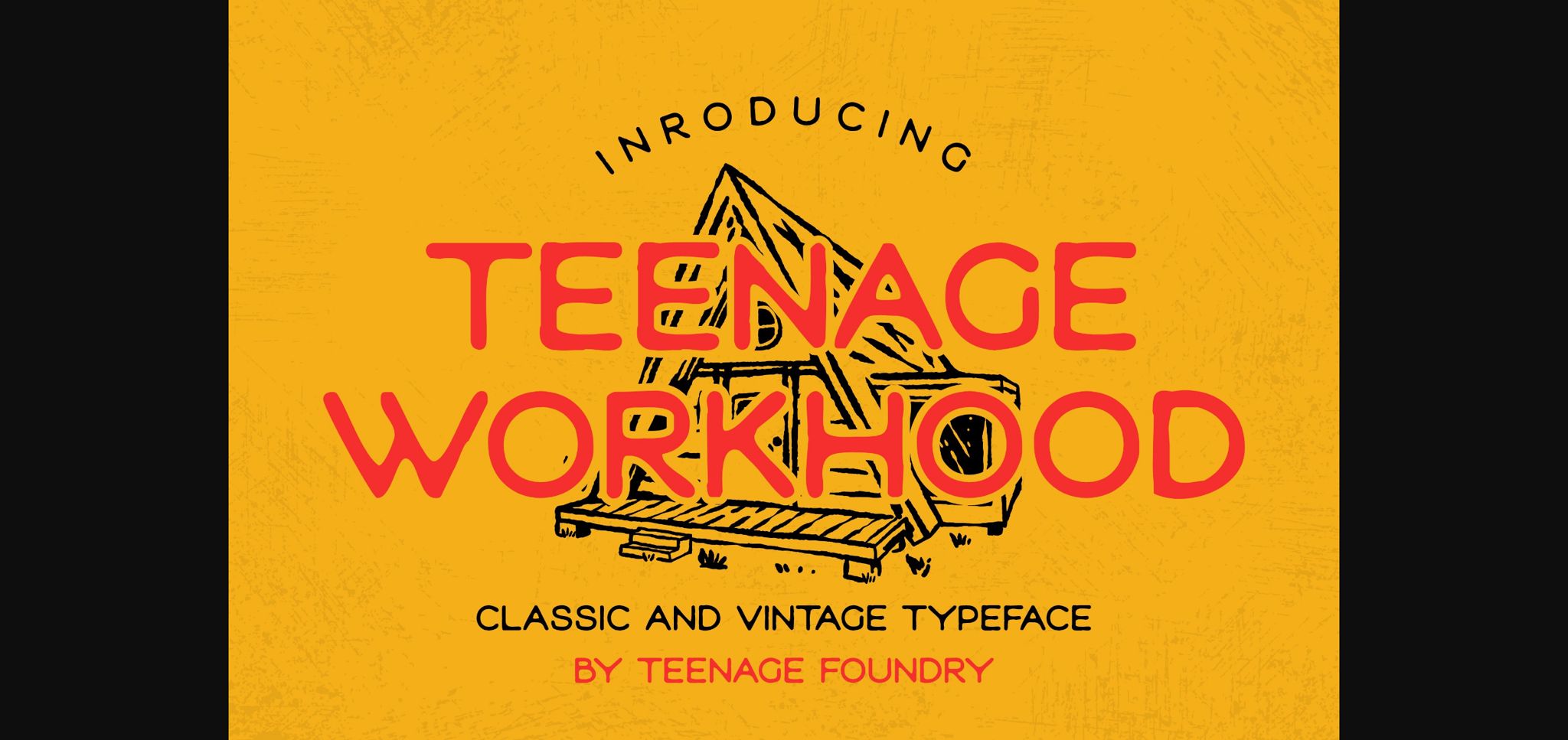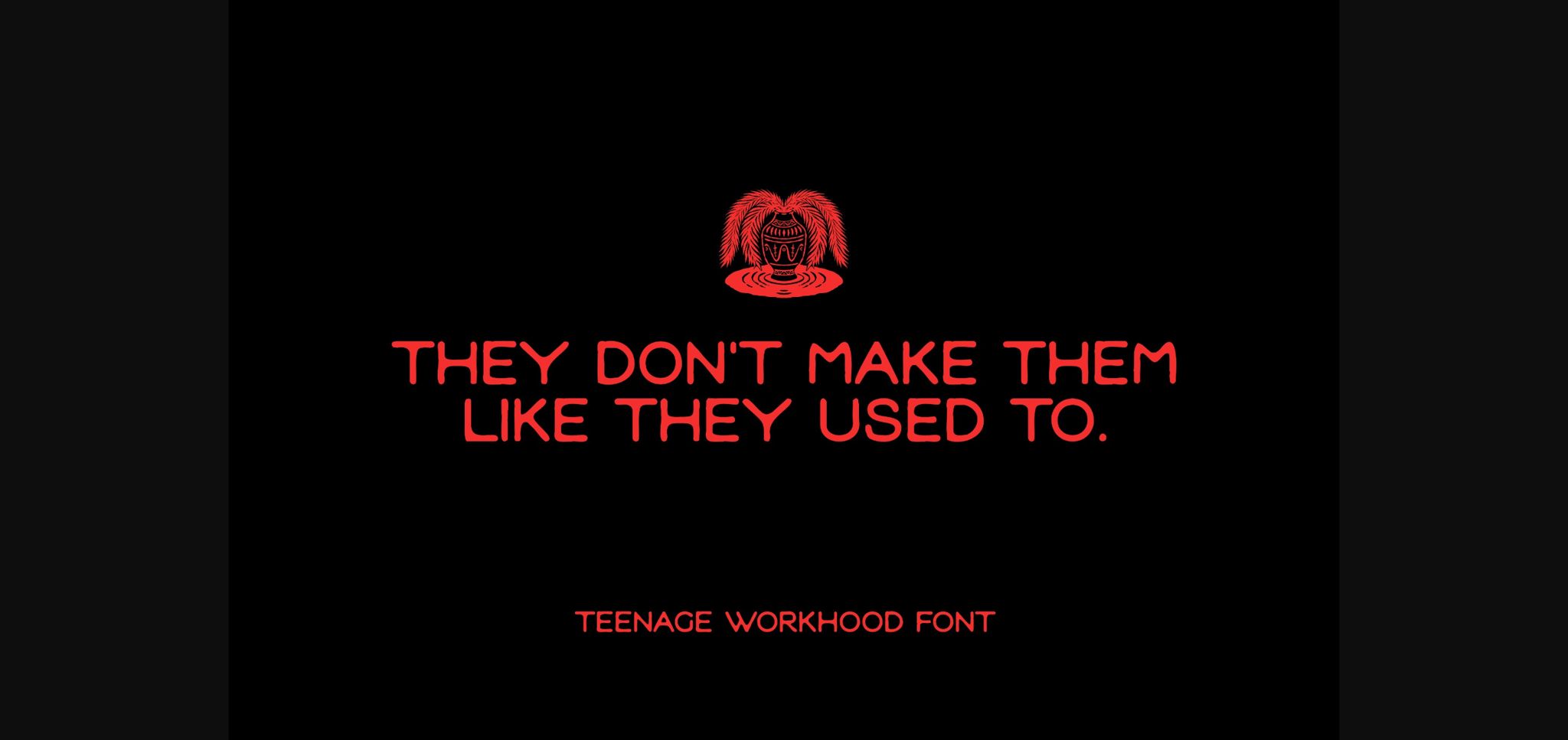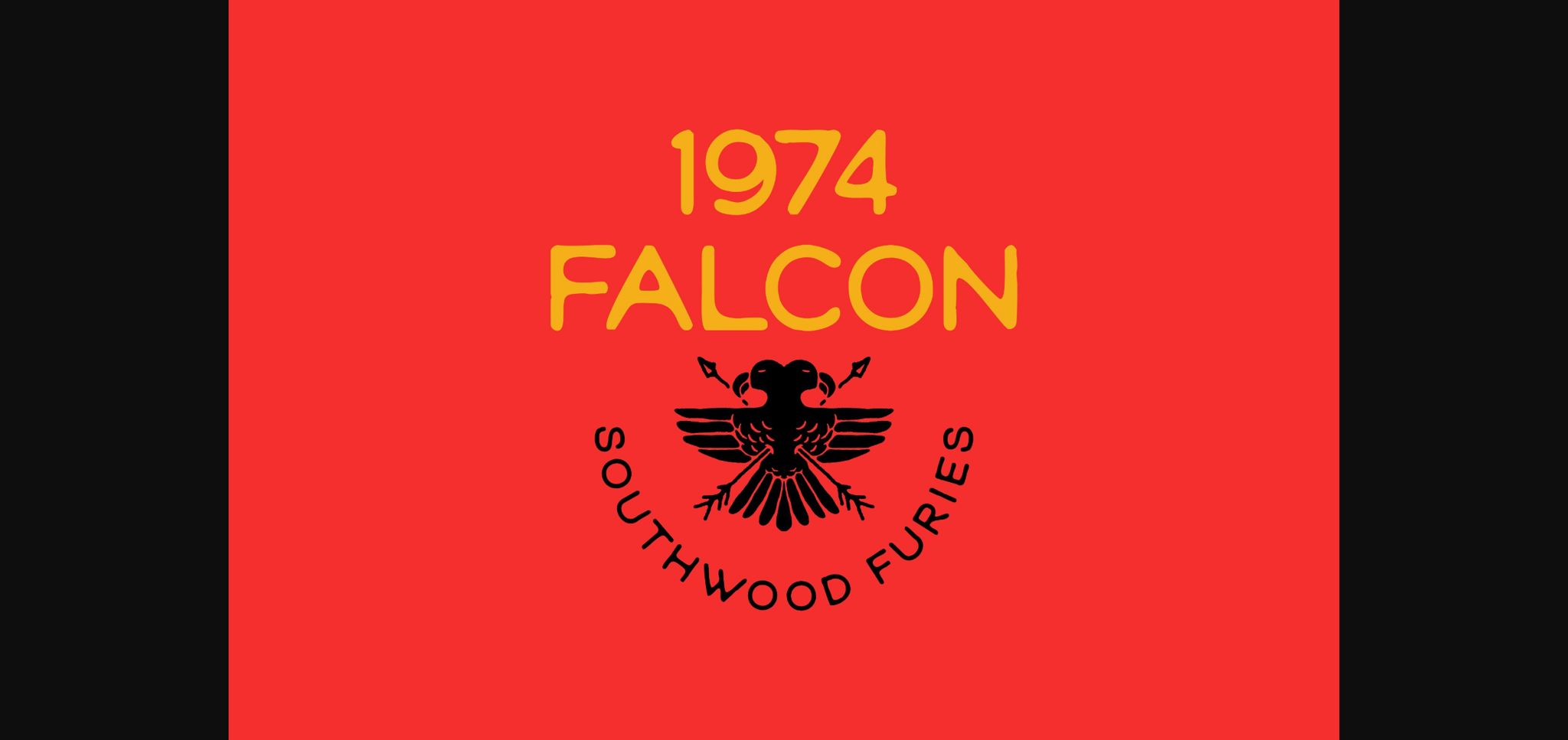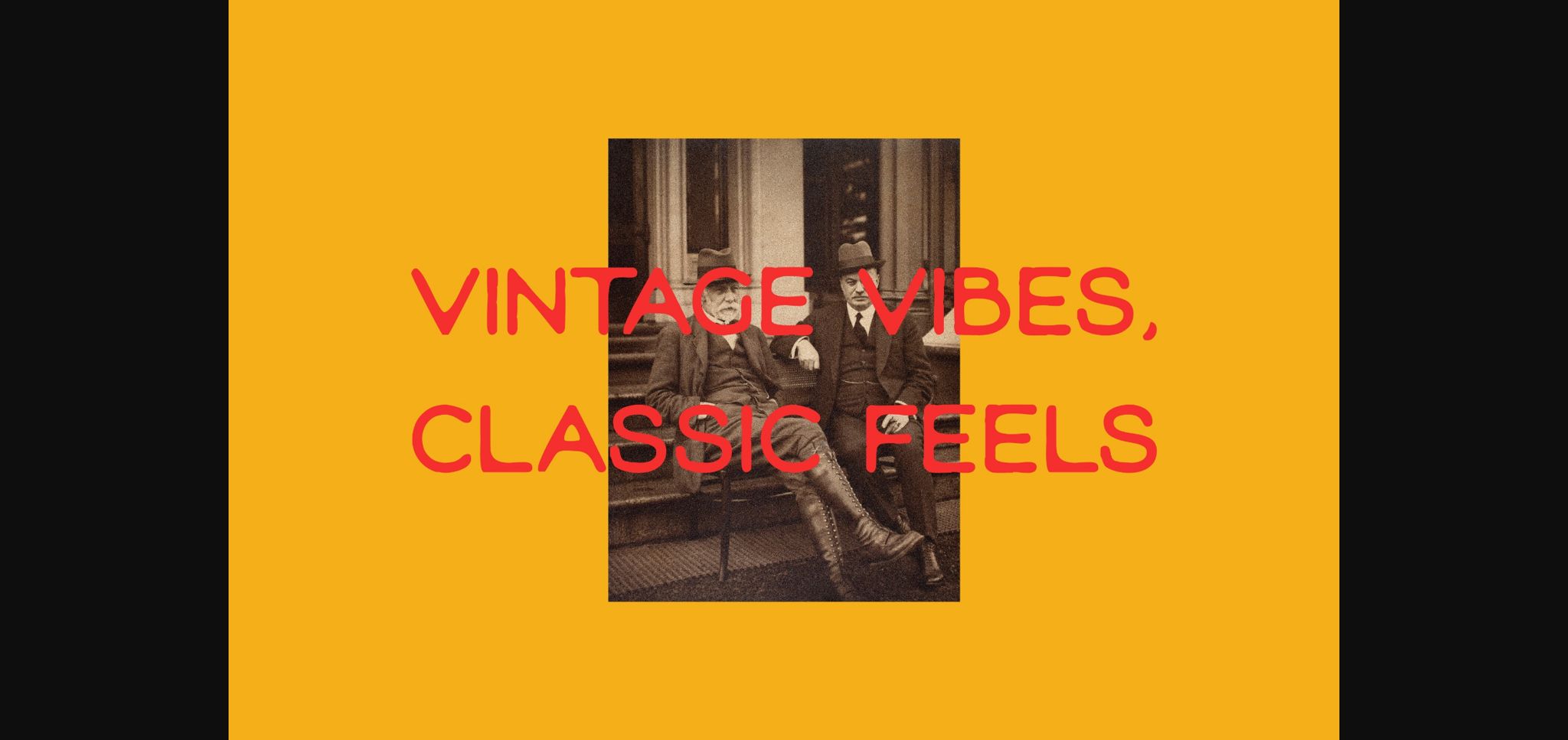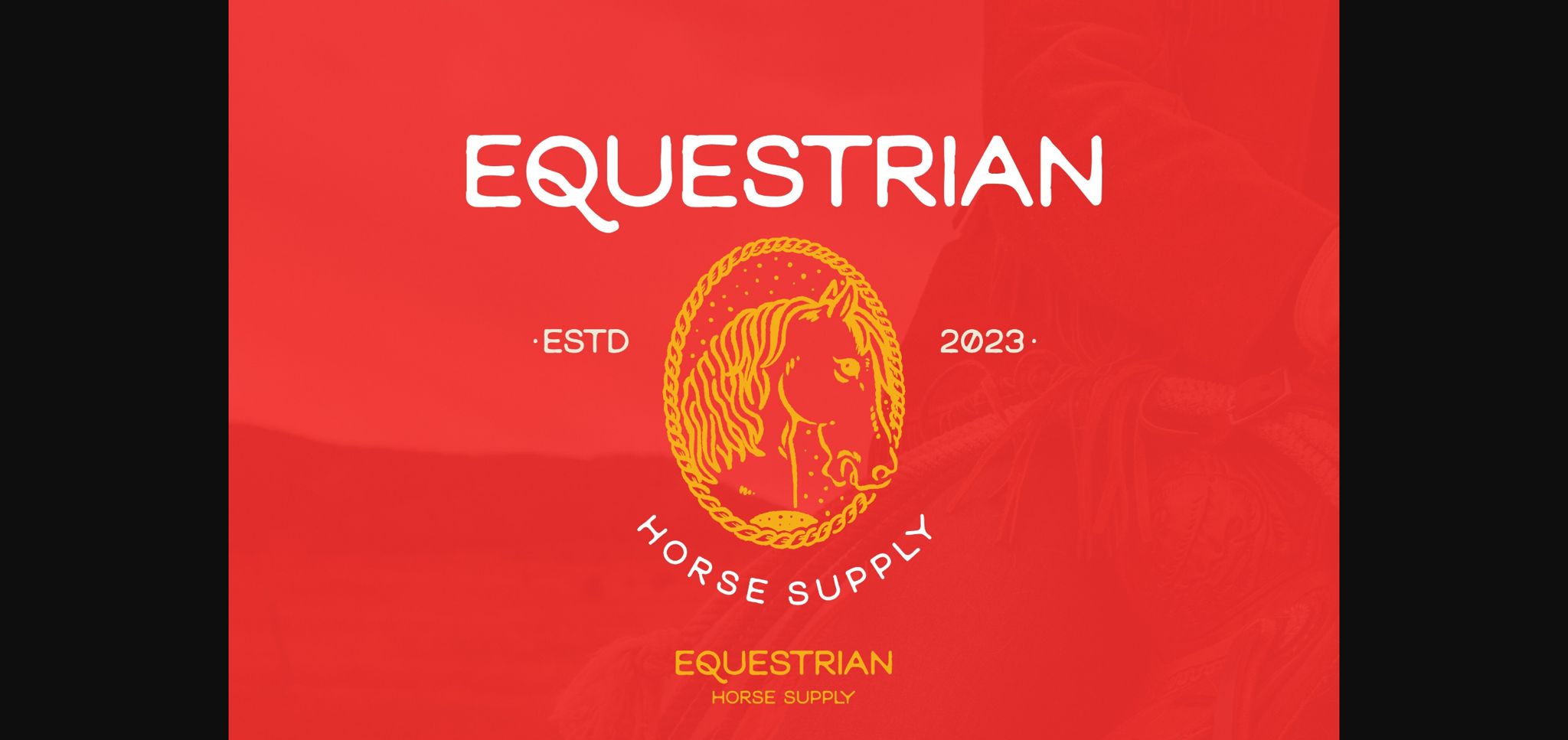
About Teenage Workhood Font
Teenage Workhood typeface, a classic and vintage-inspired font that brings a charming and nostalgic touch to your designs. Designed to evoke the essence of youthful creativity and the timelessness of workmanship, this typeface is perfect for projects that require a touch of vintage appeal.
This versatile typeface lends itself well to a range of design projects. Whether you’re creating old-school logos, vintage posters, retro packaging, or even designing an authentic vintage-inspired website, Teenage Workhood is the go-to choice to add that classic touch.